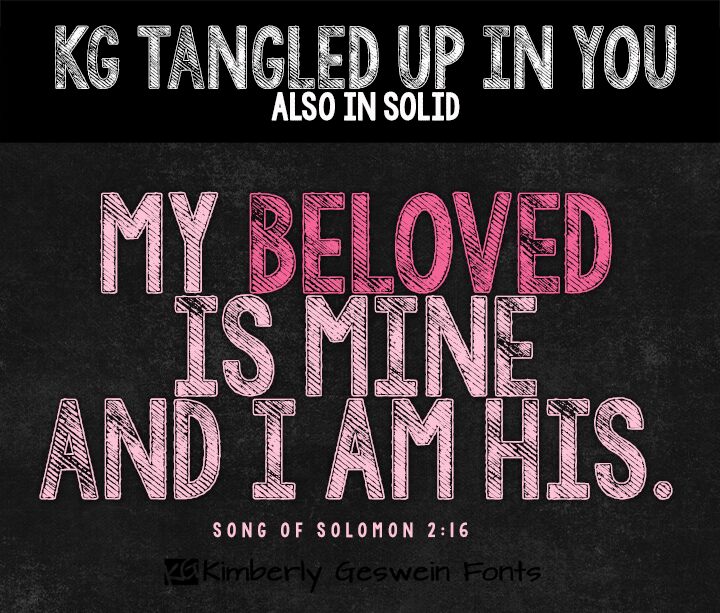
KG Tangled Up In You 2 by Kimberly Geswein is a free comic display font with tall, tightly packed capitals and a hand-cut silhouette. The uneven edges, pinched joins, and shifting stroke widths give the lettering a lively, slightly unruly look.
Designers working on youth-oriented entertainment will find it especially apt for animated title cards and game graphics. Its crooked forms also suit party posters and playful merchandise. For children's publishing, it can turn chapter headings or cover lines into part of the drawn, storybook world.